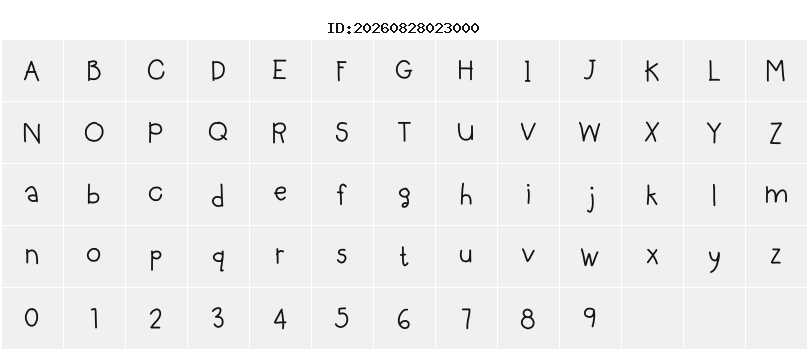
Troooble Preview
• Font Name: Troooble
• Full Font Name: Troooble
• PostScript Name: Troooble
About Troooble.ttf
Troooble.ttf is a modern, elegant sans-serif font designed for ultimate readability and visual harmony. Perfect for branding, headlines, web design, and print materials.